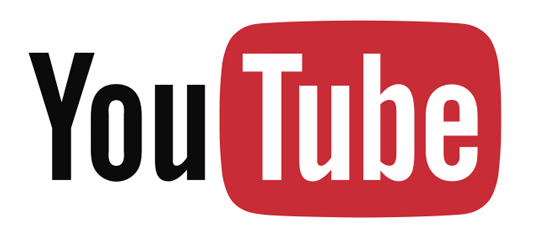
Greatest fonts countdown: 58 - Trade Gothic
58. Trade Gothic
- Jackson Burke, 1948
Three years after the Second World War, Californian book designer Jackson Burke took over from his colleague Chauncey H. Griffith as head of typographic development at Mergenthaler Linotype. Not long after joining the company, he presented his first drafts for a sans-serif typeface which he continued to develop and expand until 1960. Its name was Trade Gothic.
This extended period of development goes some way towards explaining why the members of the Trade Gothic font family resemble each other less closely than those of other successful sans-serif typefaces, such as Helvetica or Frutiger. But it is precisely these dissonances that have secured the typeface a loyal following over several decades.